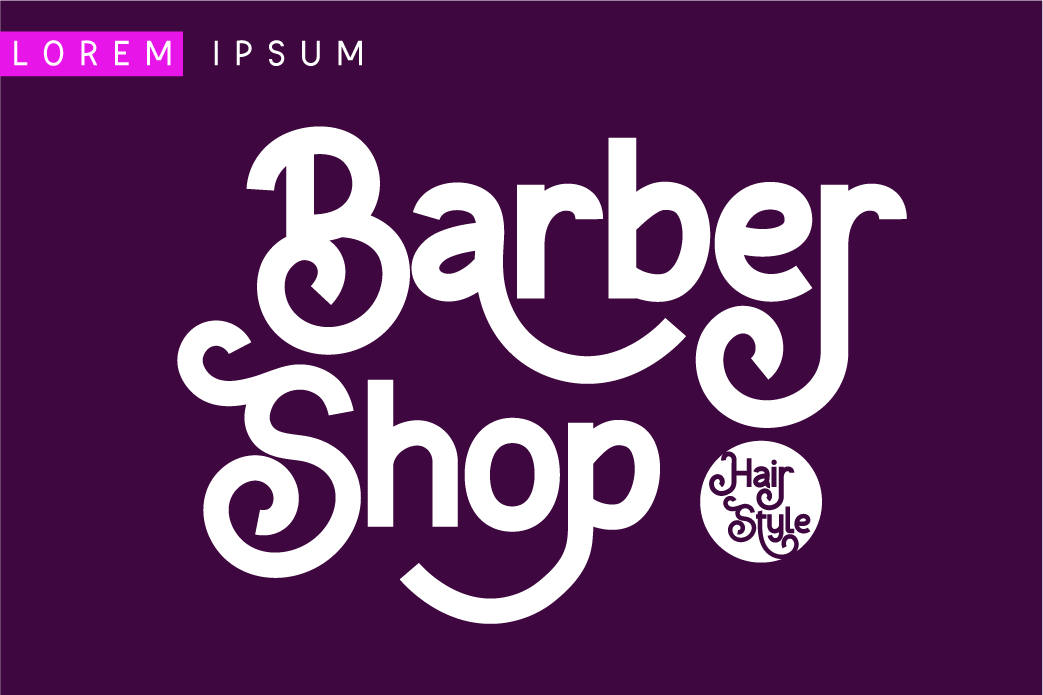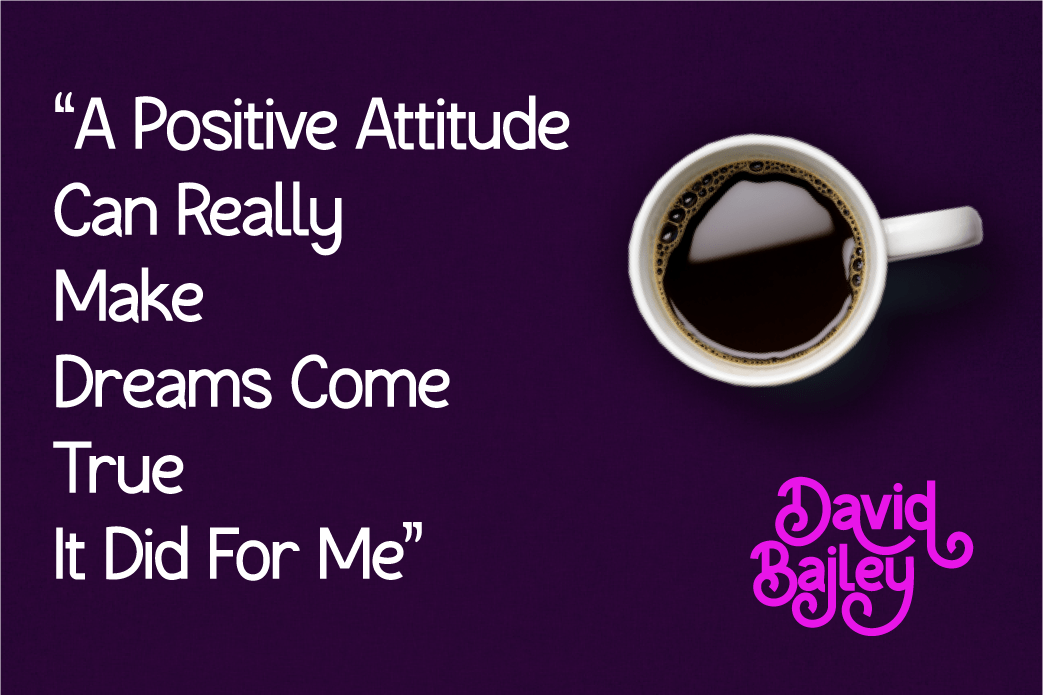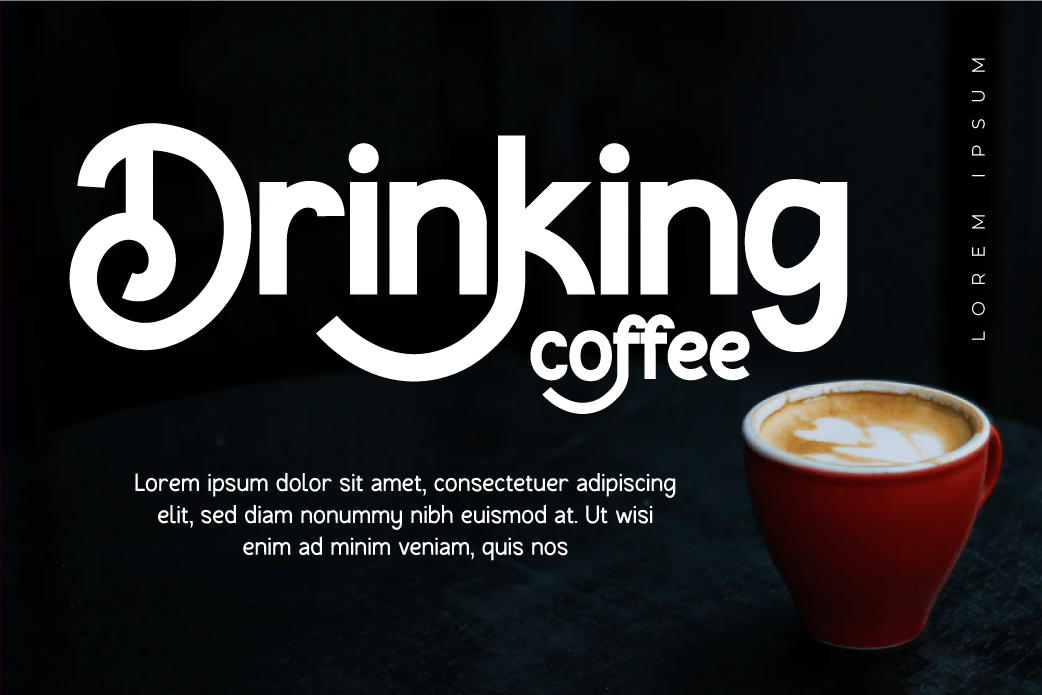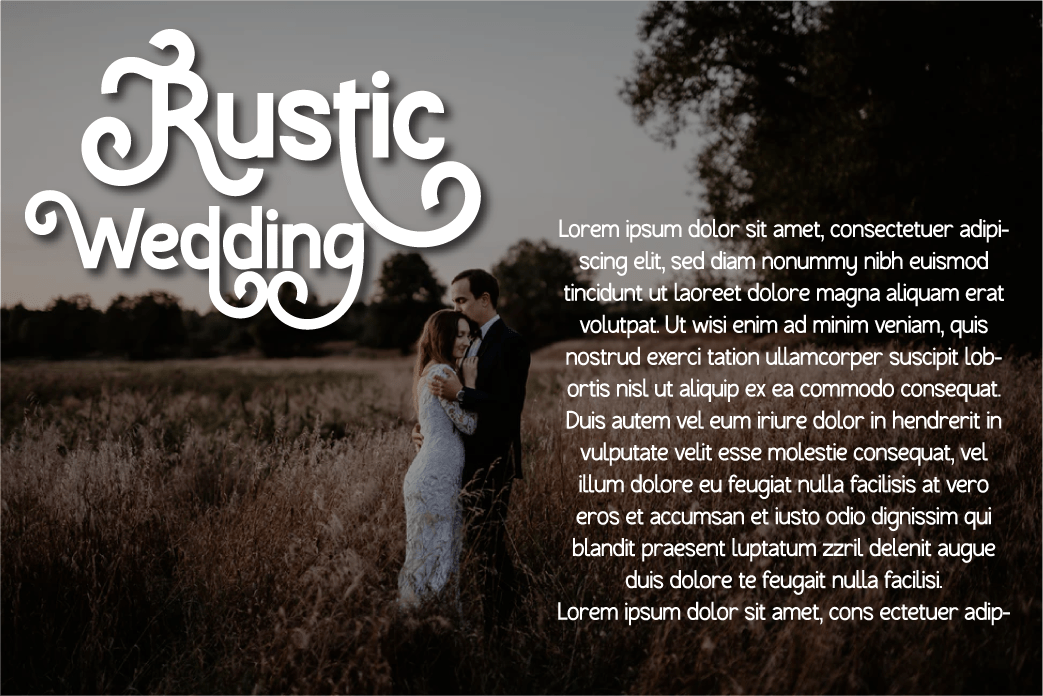
Sweet Darling
Sweet Darling is our san serif font created with a sweet and enchanting imagination which we applied to this font design. every arch we make is dramatic and dazzling. start using this font to get the perfect work in your project.
Not limited to that, the bold calligraphy font is designed to keep paying attention to the beauty of each letter, there are alternate options for the letters which are certainly easy for you to access, so you can automatically customize the letters you want to enhance the visual appearance of your design project.
This charming font also offers the beauty of abstract typography harmony for a wide variety of design projects, including digital natural handwriting for designs, quote designs, for social media business designs, advertisements, trademarks, food and beverage promotion banners, text, posters, a signature, and all designs require handwriting or whatever design you want.